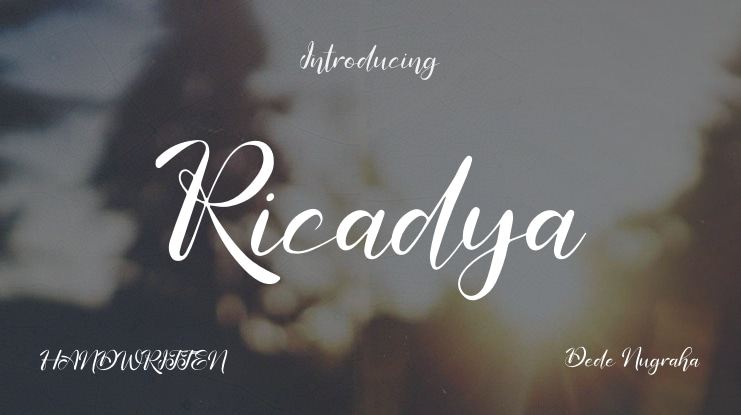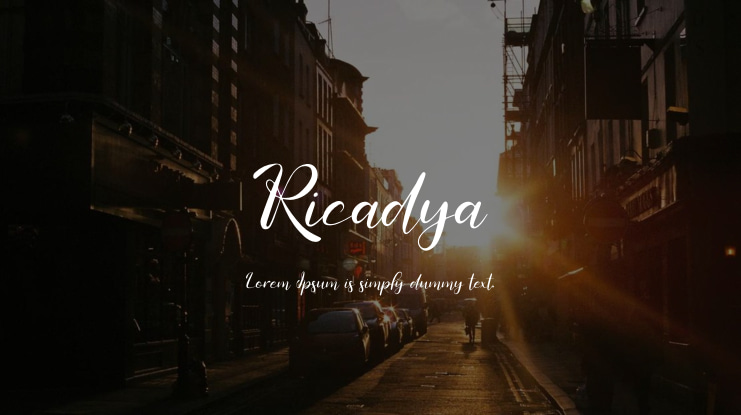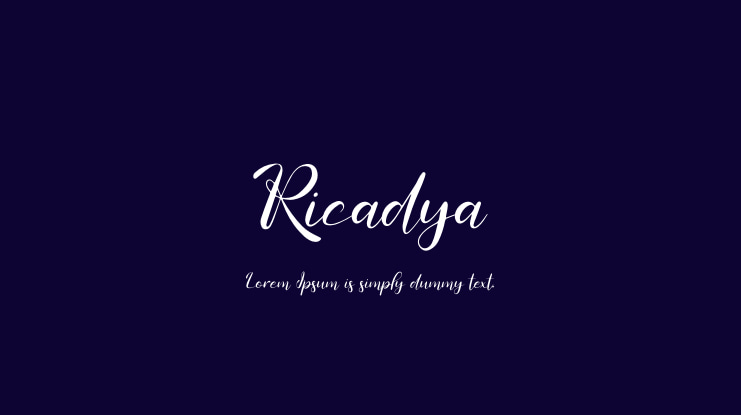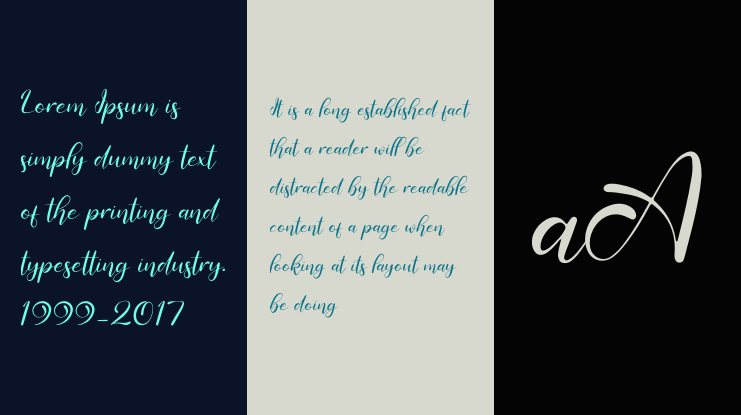
Ricadya Font
Ricadya | Handwriting Font is suitable for a variety of projects including: logos, branding projects, homeware designs, product packaging, mugs, quotes, posters, shopping bags, t-shirts, book covers, name cards, invitation cards, greeting cards, labels, photography, watermarks, special events, and any other projects that require a beautiful script touch.